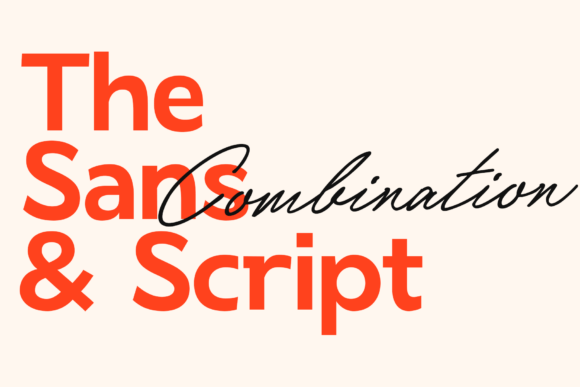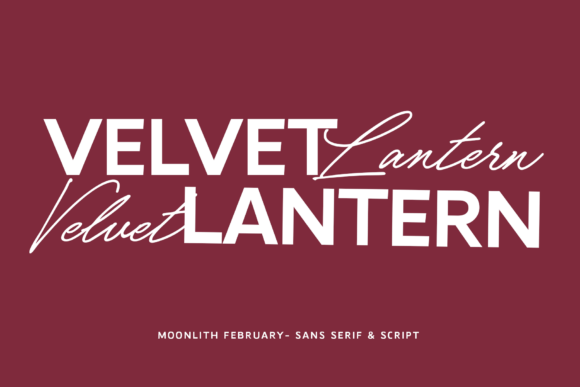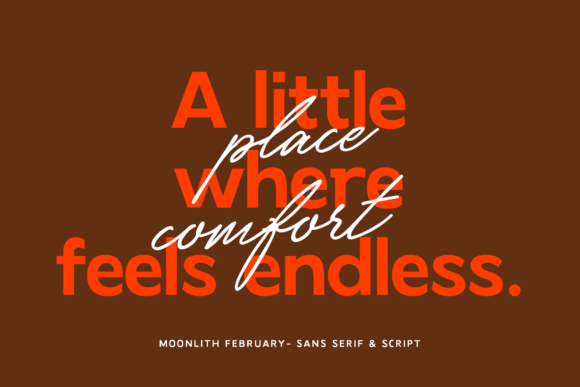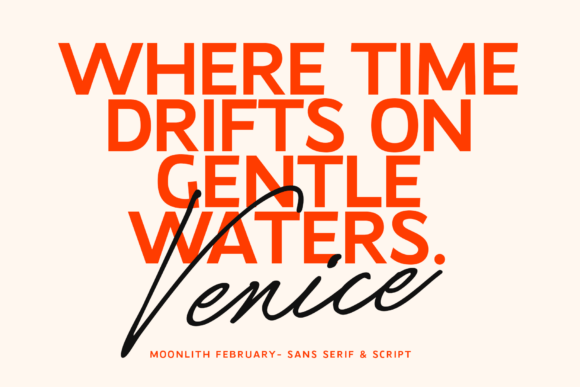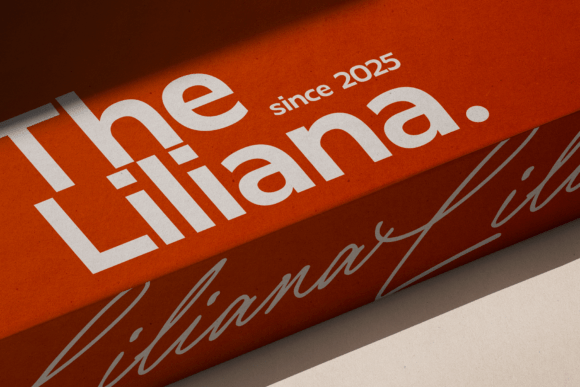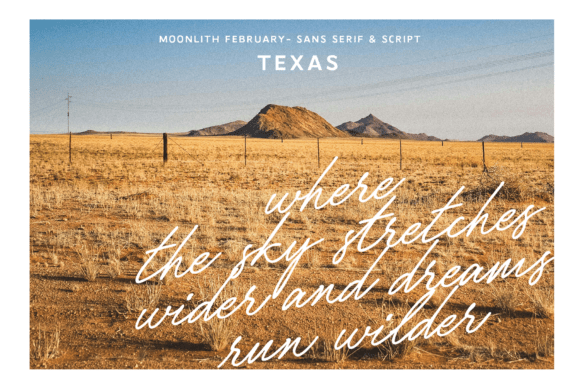
Introduction to Moonlith February Script Font Font
Fonts play a crucial role in design, and the Moonlith February Script Font font is a typeface that brings both character and versatility to any project. Whether you’re working on a branding project, a website, or a print design, the Moonlith February Script Font font offers a unique style that can elevate your work.
Moonlith February Duo Font | Elegant Duo Typeface Moonlith February typeface is a perfect harmony between the clean precision of a modern sans serif and the graceful flow of a handwritten script.
Designed to blend professionalism with elegance, this duo offers a versatile style thatβs both timeless and contemporary The sans serif delivers a sleek, minimalist look ideal for headlines, branding, and professional layouts, while the handwritten script adds a warm, personal touch with its natural and flowing strokes.
Key Features of Moonlith February Script Font Font
Why Choose Moonlith February Script Font Font?
The Moonlith February Script Font font is more than just a typeface β it’s a design tool that helps you communicate your message with style and clarity. Its unique character set and versatile design make it suitable for a wide range of applications, from elegant invitations to bold headlines.
With its carefully crafted letterforms and balanced proportions, the Moonlith February Script Font font ensures readability and visual appeal across all mediums.
What makes Moonlith February Script Font font special?
The Moonlith February Script Font font stands out with its unique design, exceptional readability, and versatility across various design applications.